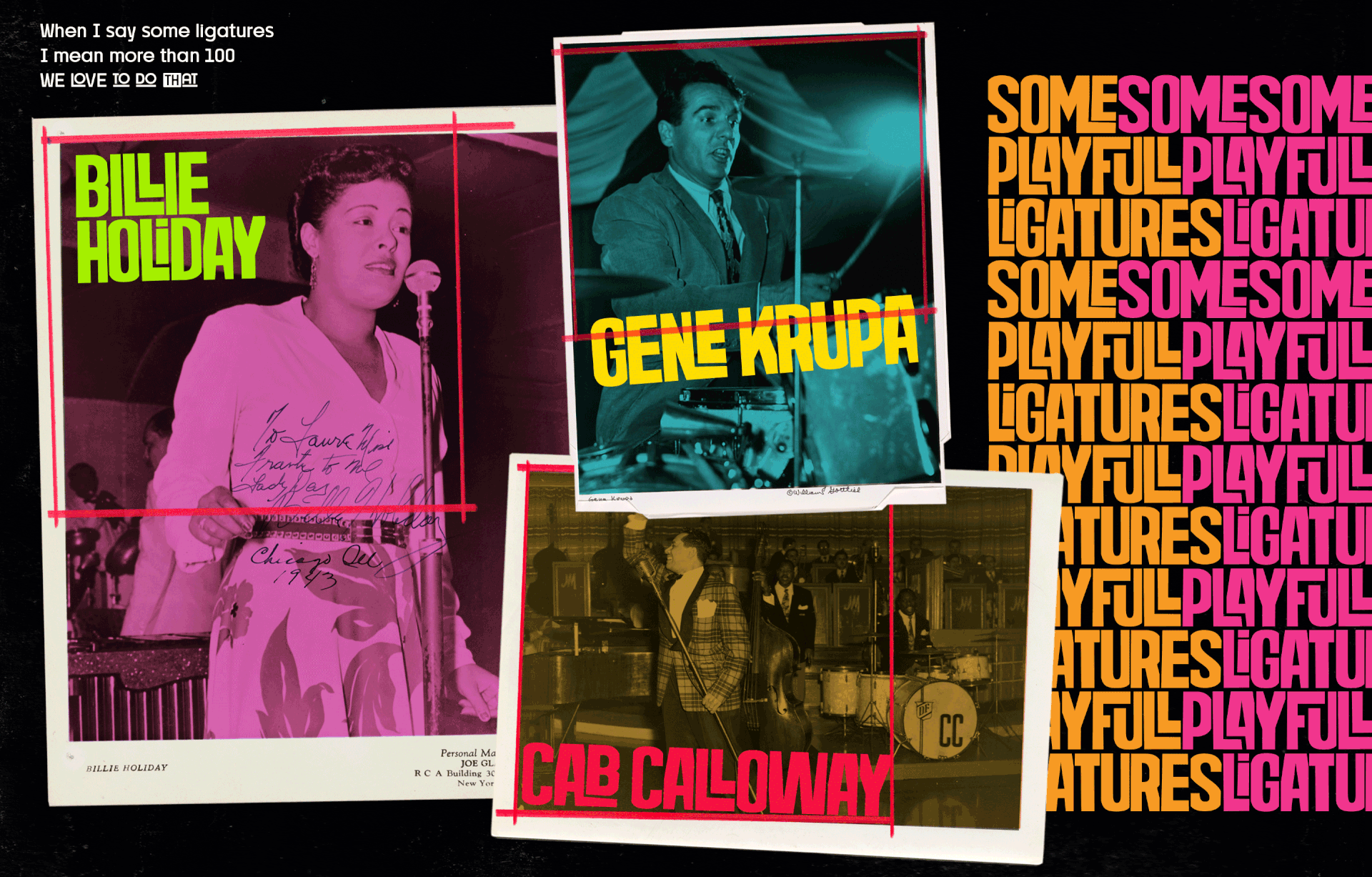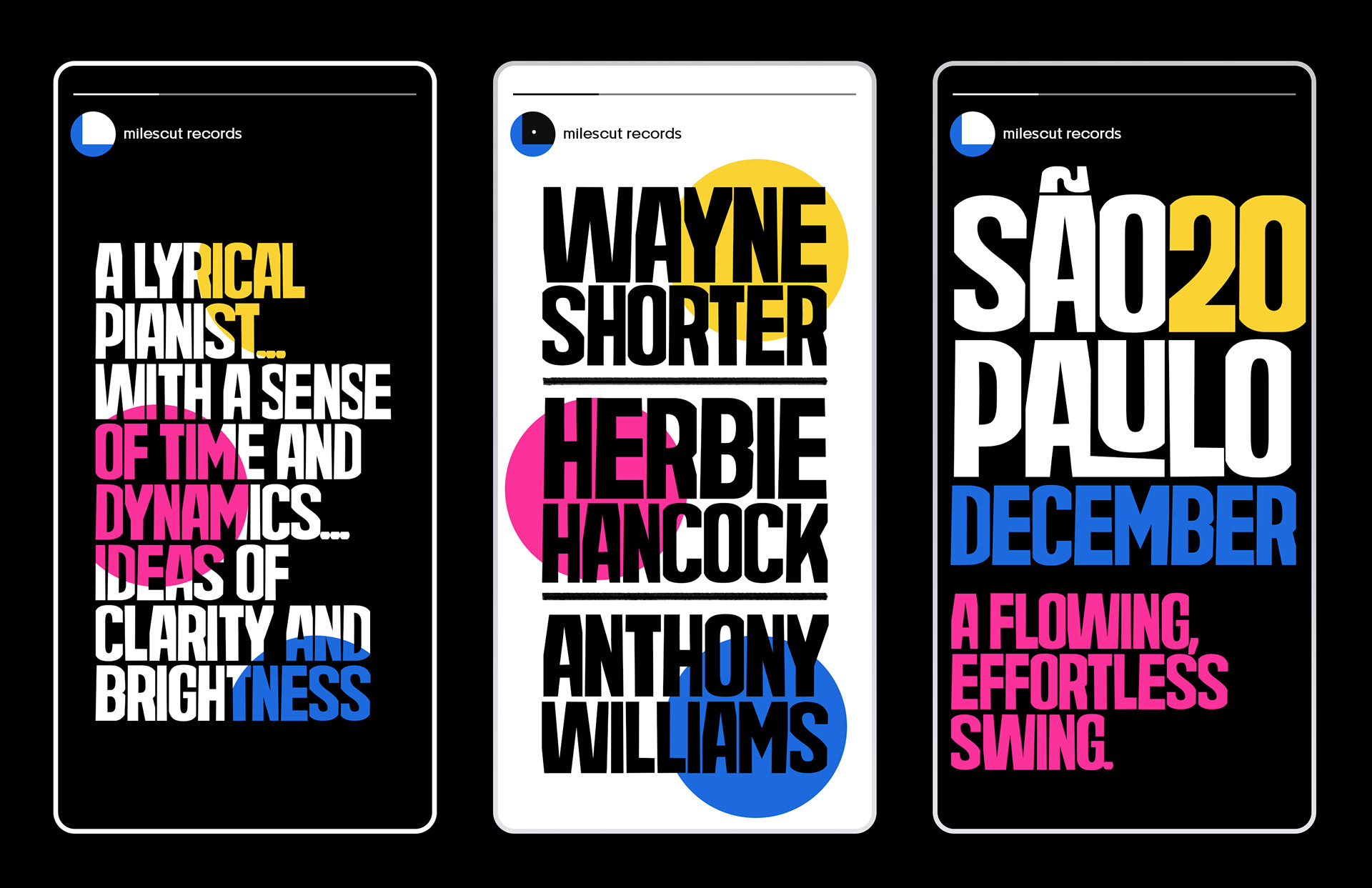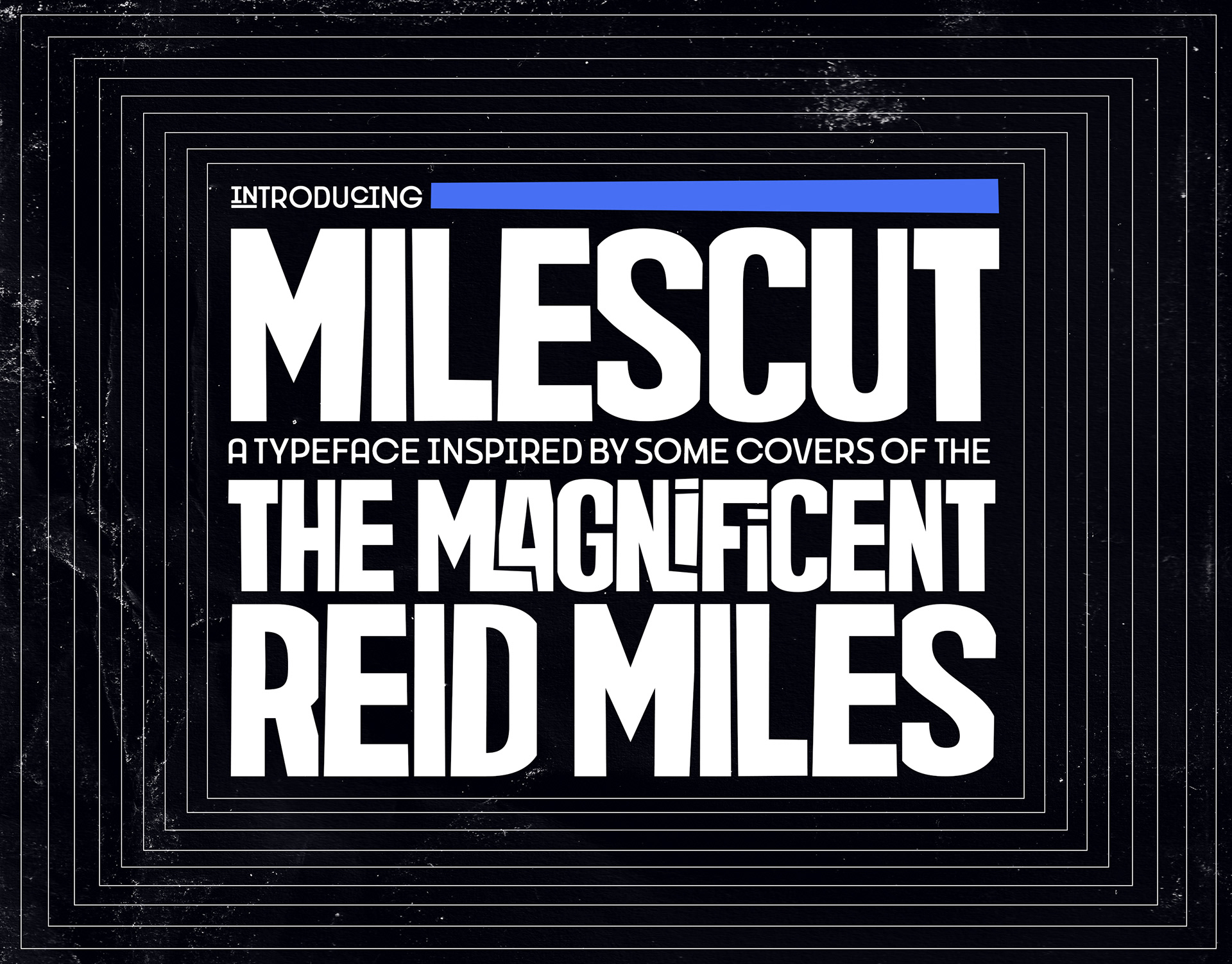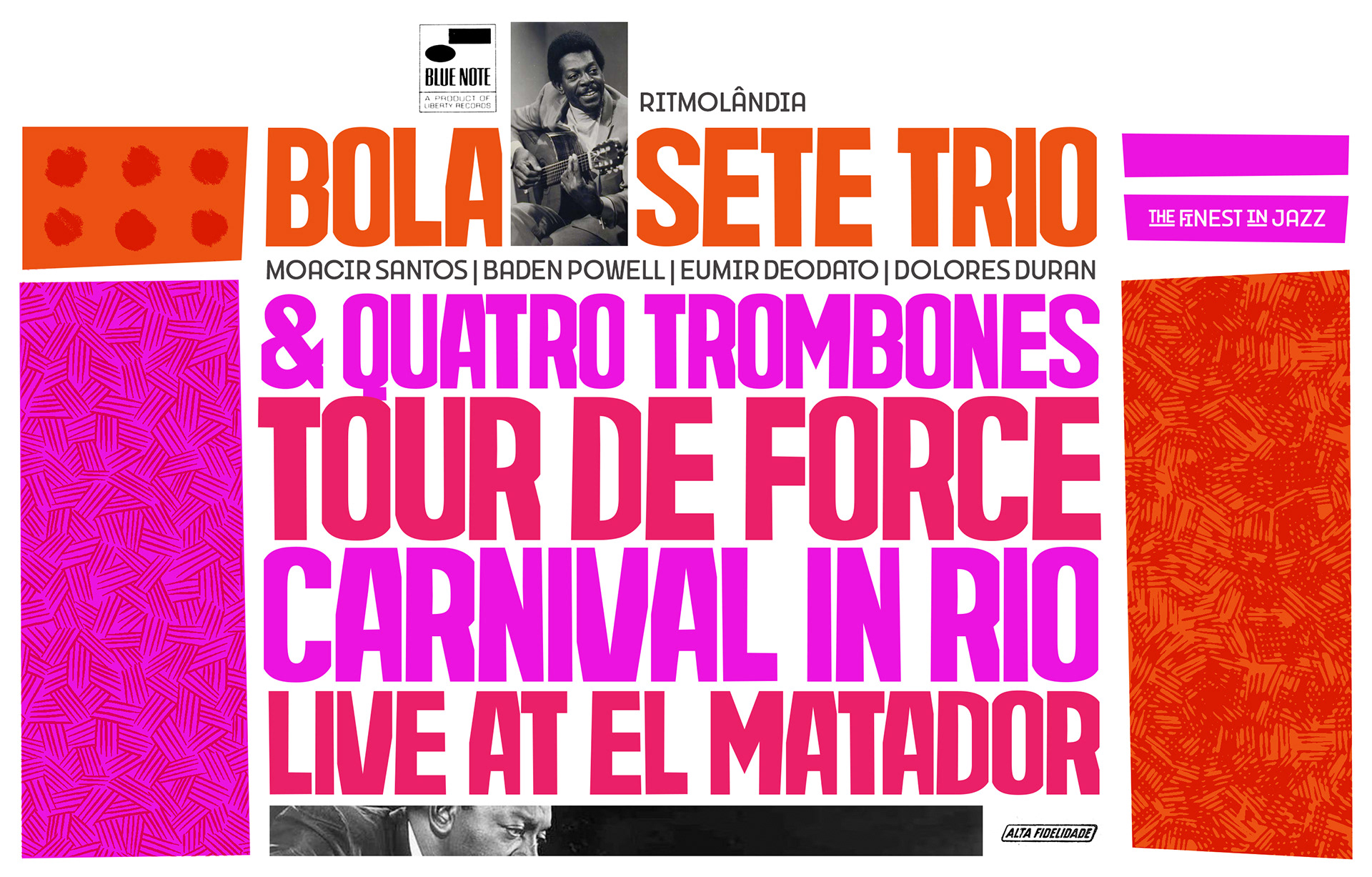
Milescut, a typeface inspired by some amazing Reid Miles covers for Blue Note Records.
English. Milescut is a display typeface inspired by some seminal covers the graphic designer and photographer Reid Miles created for the Blue Note Records between the 1950s and 1960s. Miles made almost 500 covers for Blue Note in this period, including some using the hand-cut technique that consists basically in doing vertical cuts in capital letters and numerals to create a unique style within the universe he created for Blue Note. Milescut is a tribute to this small “cut” 😬 in his trajectory within the greatest record label of all time. This idea came about while I was working on what will become soon a revival of a wood type that I fell in love with when flipping through a Specimen of the MACHINE CUT WOOD TYPE manufactured by The WM. H. Page Wood Type Co.
Milescut has two extra sets of alternates that work cyclically when activated in your OpenType menu and lots of ligatures, pretty cool :)
Portuguese. Milescut é uma fonte display inspirada por algumas capas que o designer gráfico e fotógrafo Reid Miles fez para a gravadora Blue Note entre as décadas de 1950 e 1960. Miles fez quase 500 capas para a Blue Note nesse período entre elas algumas usando a técnica de cortes verticais nas letras maiúsculas e numerais para criar um estilo único dentro do universo que ele criou para a Blue Note. Milescut é uma homenagem a esse pequeno “recorte” 😬 em sua trajetória dentro da maior gravadora de todos os tempos. Essa ideia surgiu enquanto eu trabalhava no que virá a ser um revival de um tipo de madeira pelo qual me encantei ao folhear um Specimen de MACHINE CUT WOOD TYPE manufaturados por The WM. H. Page Wood Type Co. Milescut tem dois conjuntos extra de glifos que funcionam de forma cíclica ao serem ativados no seu menu OpenType além de muitas ligaduras, bem legal :)​​​​​​​
Milescut is a hand-cut typeface inspired by true events.